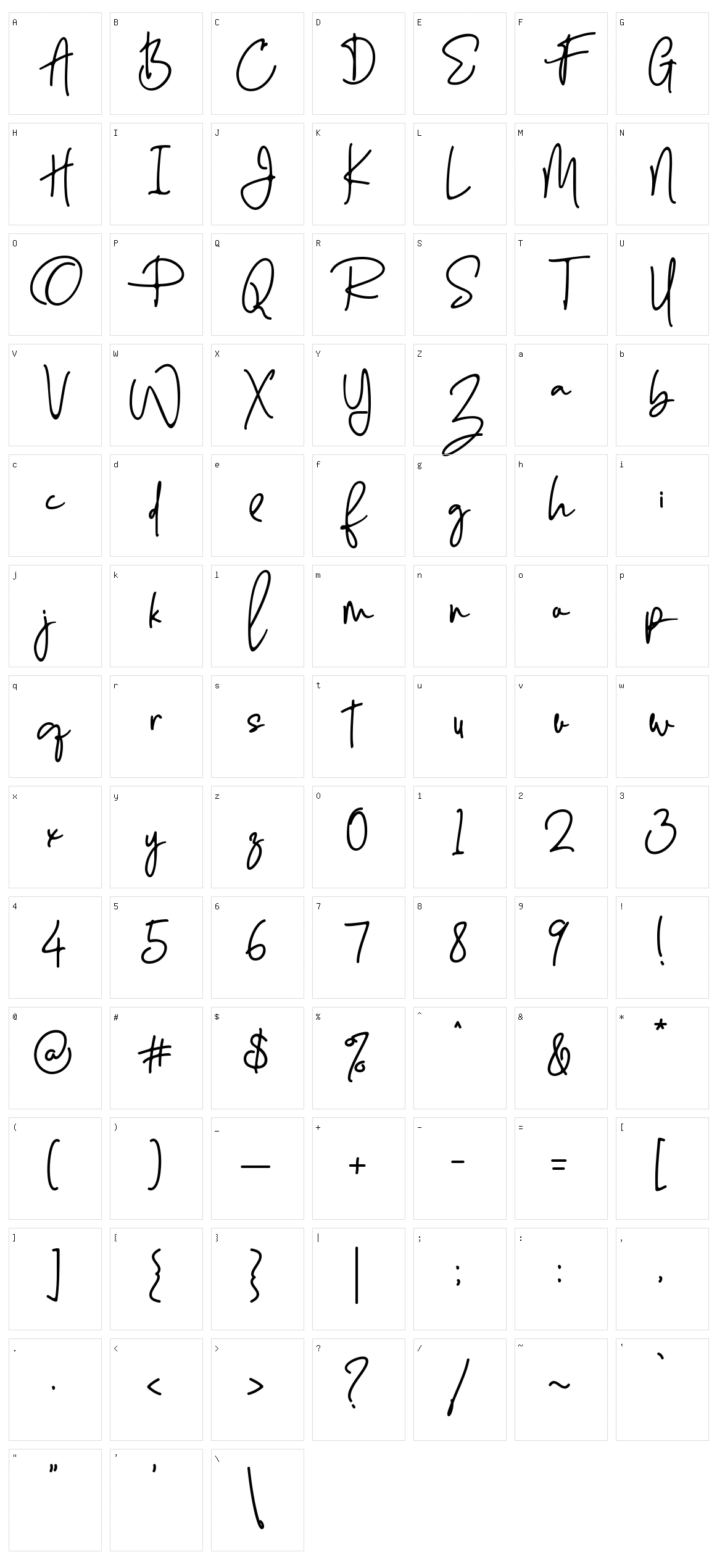
The free font Enthusiast Behavior is carefully designed by aldedesign, showcasing a thoughtful balance of creativity and usability and falls under the Script font style. When you download the ZIP file, it contains only 46.74 KB of font files, making it lightweight and quick to download. Please review the license details below to understand permitted usage and distribution rights. If license information is not available, we recommend using this font for personal projects only or contacting the author directly for commercial usage permissions.